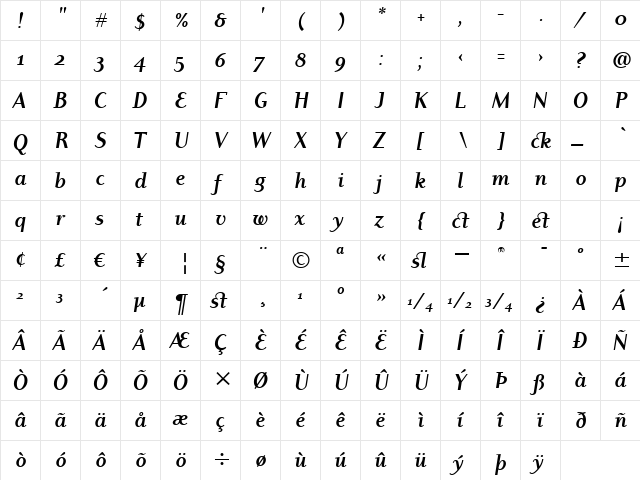
DyadisOSITC TT BoldItalic
BoldItalic · International Typeface Corporation Yvonne Diedrich ·
Design Context for DyadisOSITC TT Typeface
DyadisOSITC TT is a composed and adaptable typeface that performs quietly and consistently across a wide range of design contexts. The dynamic lean of this cut emphasises speed and emphasis in any layout. The heavy weight commands attention and anchors typographic hierarchies.
Pro Tip: Use DyadisOSITC TT for emphasis, pull quotes, and subheadings where its slanted energy can add rhythm to the layout.